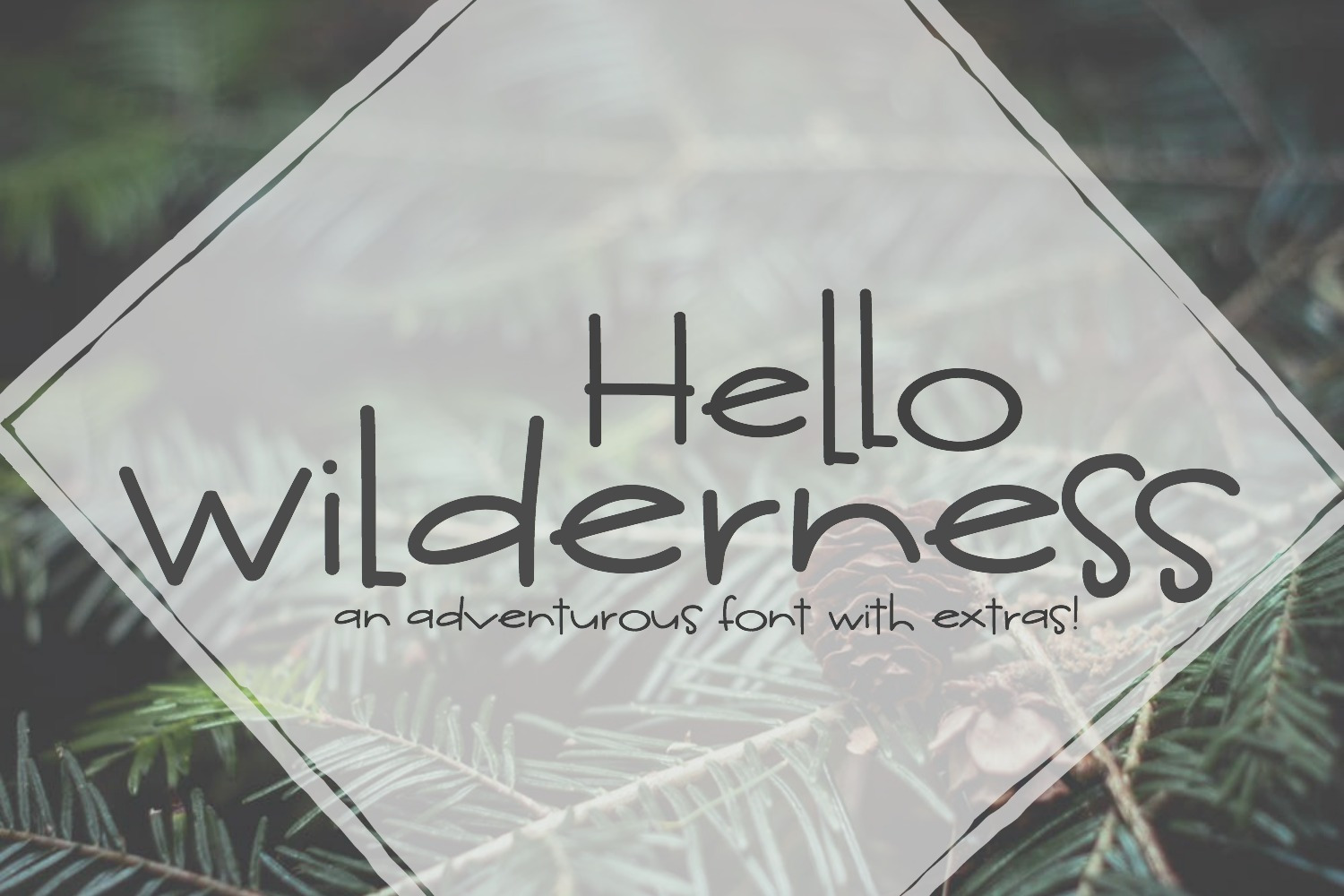
NEW! Hello Wilderness Sans Font
Meet Hello Wilderness Sans! This font is jam packed with handwritten charm and mountain themed extras! This font is perfect for designs that call for a youthful touch!